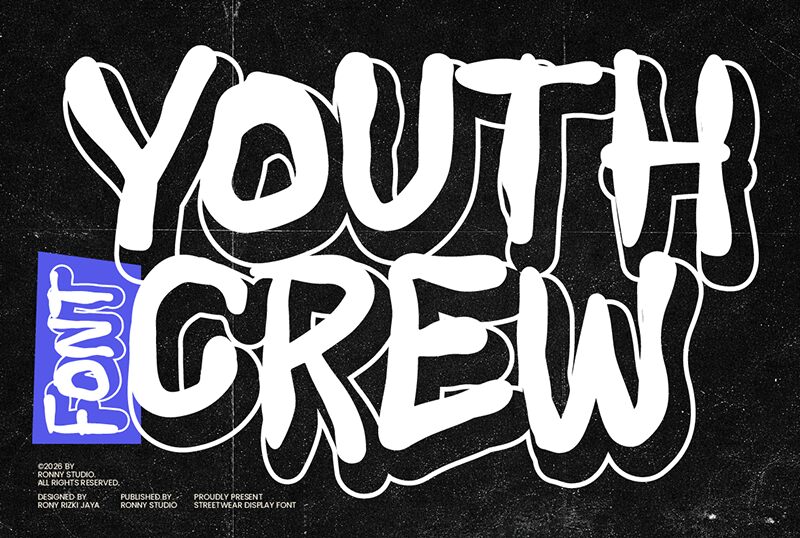
Youth Crew font by Ronny Studio is a free script font with a graffiti-inspired, dynamic, and energetic vibe. With a bold expression and youthful flair, it perfectly encapsulates an urban aesthetic, ideal for contemporary applications. The design captures informal and expressive tones that connect with street art and the vibrant energy of modern culture.
Get creative with Youth Crew in projects like streetwear design, poster art, album covers, magazine layouts, or skateboard graphics. It’s also a great choice for branding, logos, apparel, merchandise, stickers, banners, and event invitations where a youthful and fresh look is needed.